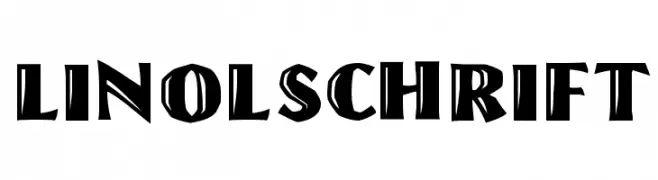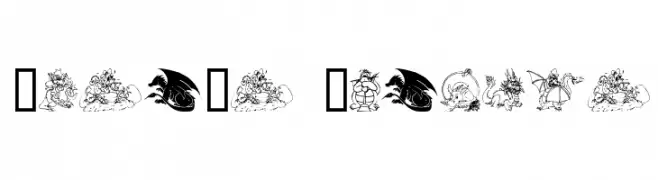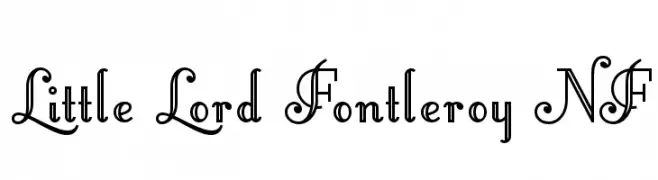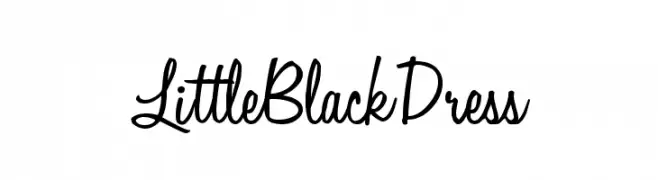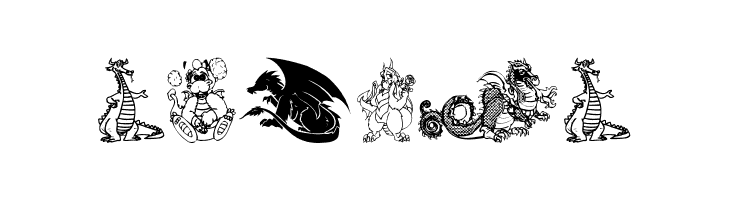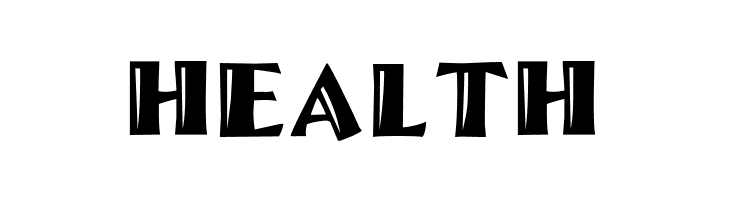
A bold, angular font with geometric influences and a modern, decorative style.
A bold, textured font with a hand-carved, woodcut style.
Whimsical dragon-themed decorative font with illustrated glyphs.
A bold, distressed font with a grunge effect, perfect for dynamic and edgy designs.
A decorative font with ballerina silhouettes integrated into bold, artistic letters.
A whimsical, playful handwritten font with dynamic strokes and a spontaneous feel.
An elegant and decorative font with intricate curls and flourishes.